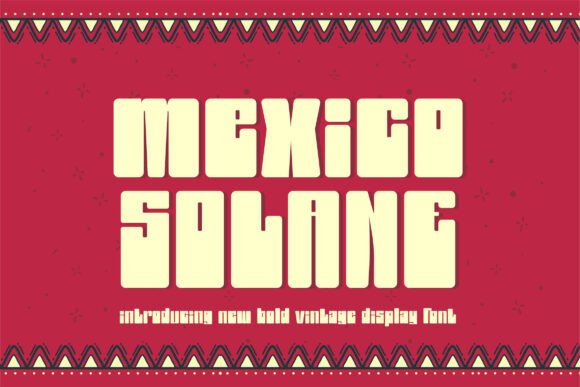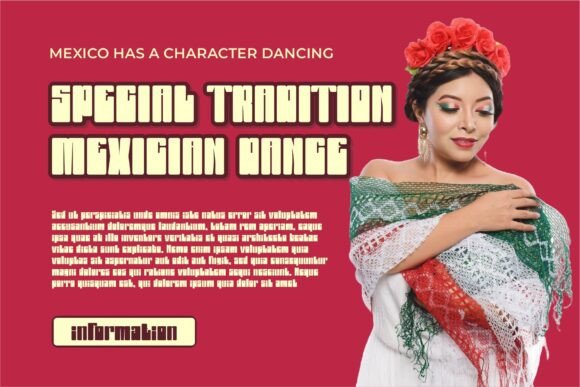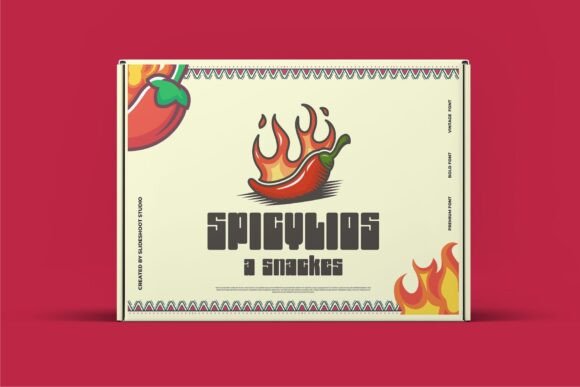
Mexico Solano Font
About the Mexico Solano Font
Explore the possibilities with Mexico Solano Font, a font that offers both beauty and functionality. Mexico Solane is a striking bold display font inspired by vintage Mexican art and culture. Its geometric, blocky letters exude a retro vibe, making it perfect for posters, branding, packaging, or any design that needs a bold, nostalgic flair with a cultural twist.
Mexico Solano’s strong geometric forms make it ideal for headlines, short impactful statements, and logos. It excels in branding projects requiring a bold, retro aesthetic, particularly for products emphasizing heritage or cultural authenticity. Avoid using it for body text or lengthy paragraphs; its weight and strong character aren’t suited for extended reading.
Its retro-bold personality pairs well with clean sans-serif fonts like Montserrat or Open Sans for a balanced contrast. For a more vintage feel, consider pairing it with a serif like Playfair Display or Lora. Scripts like Great Vibes could add a touch of elegance, but should be used sparingly to avoid overwhelming the bold statement of Mexico Solano.
The font projects a confident, slightly rebellious energy, ideal for brands aiming for a distinctive and memorable image. Think tequila brands, artisan goods, or Mexican-inspired restaurants – projects that benefit from a strong visual identity with a touch of vintage flair.
Mexico Solano Font Usage Examples
Mexico Solano Font Example